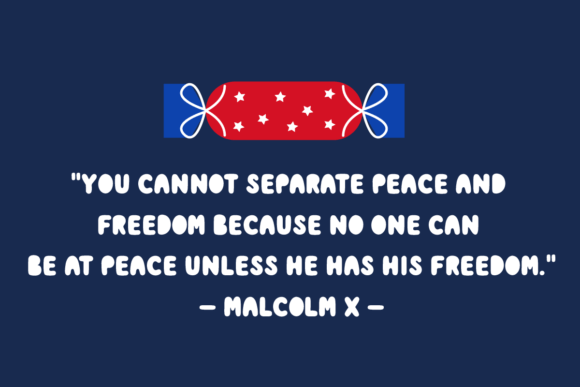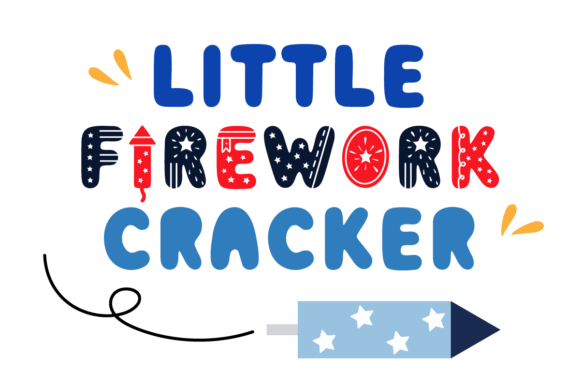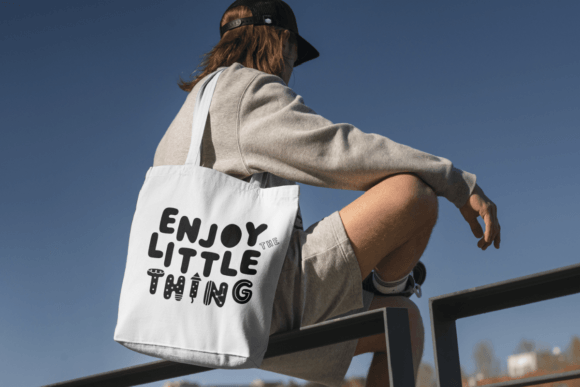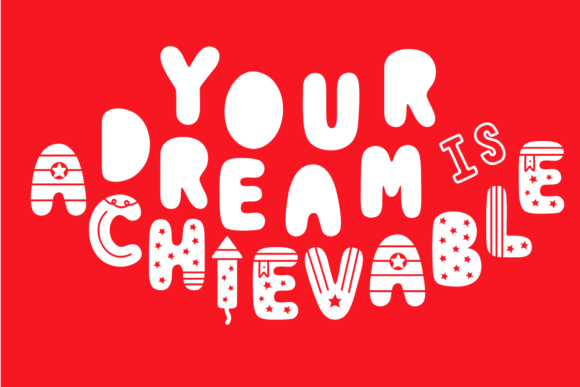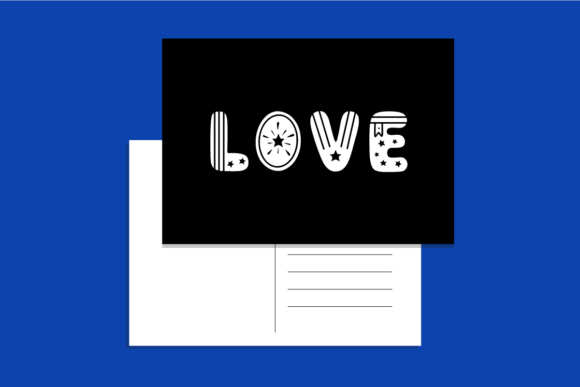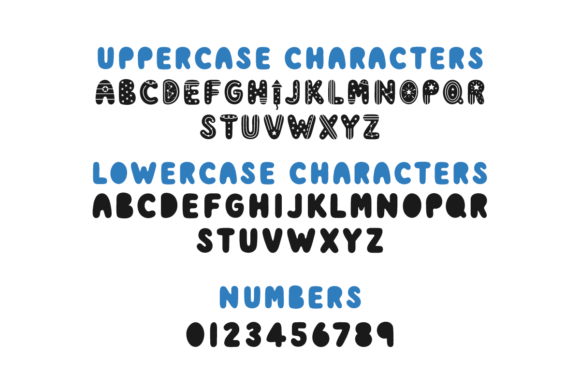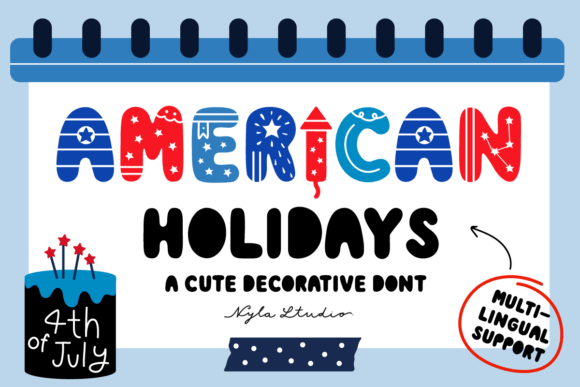
The Perfect Font for Patriotic Projects: American Holidays Font
I’ll never forget the time I was working on a project for a client’s Independence Day celebration. I had all the design elements ready, but I was struggling to find the perfect font that would capture the essence of American patriotism. That’s when I stumbled upon the American Holidays Font, and it instantly became the star of the show! ✨
With its cute doodle details and decorative style, this font is perfect for any project that celebrates American history or events like Independence Day, Veterans Day, or Memorial Day. In this article, I’ll share my experience with the American Holidays Font, its features, and how to use it on various platforms.
American Holidays Font Features
The American Holidays Font comes with some amazing features that make it a versatile and fun font to work with. Here are some of the key features:
- Extended punctuation ✅
- Multilingual Characters support 🌎
- The doodle details add a playful touch to any design 🎉
- Perfect for creating festive and patriotic designs 🎊
- Multilingual support makes it accessible to a wider audience 🌍
- Easy to use and pairs well with other fonts 👫
While the American Holidays Font is amazing, there are a few things to keep in mind:
- Some characters may not work well in very small sizes ⚠️
- Not suitable for very formal or corporate designs 🤔
The American Holidays Font was inspired by the creator’s love for American history and patriotism. The designer wanted to create a font that would capture the essence of American celebrations and events. With its doodle details and decorative style, this font is sure to bring a touch of patriotism to any design.
Q: Is the American Holidays Font suitable for body text?
A: While the American Holidays Font is decorative and fun, it’s best used for headlines, titles, and short text. For body text, you may want to use a clearer font.